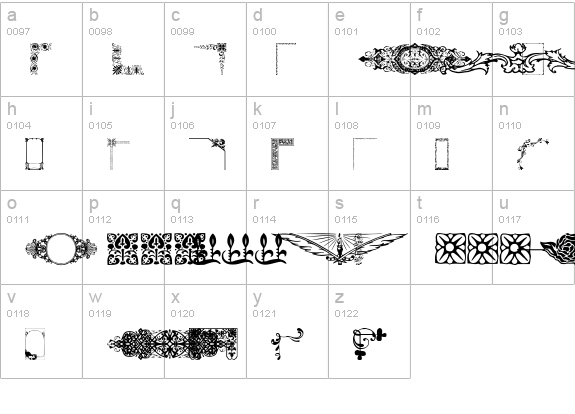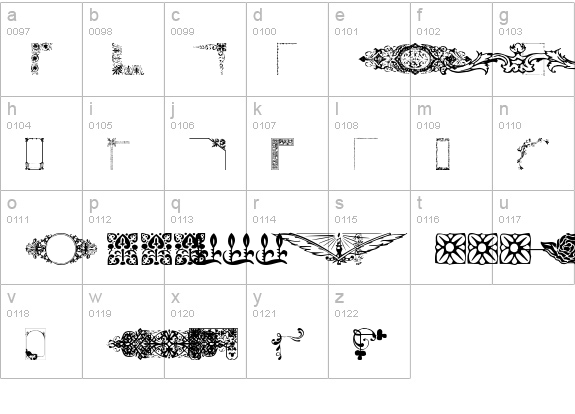
Designer Mix Font Details
Introducing Designer Mix font, a stunning and versatile typeface that is sure to elevate your designs to new heights. With its unique blend of modern and classic elements, Designer Mix font is perfect for a wide range of projects, from branding to editorial design. The elegant curves and stylish details of this font will capture attention and add a touch of sophistication to any piece. Best of all, Designer Mix font is completely free to download at FontsMarket.com. Yes, that's right - you can access this premium font at no cost, making it an incredible value for designers of all levels. Don't miss out on the opportunity to enhance your work with the Designer Mix font - download it today and unleash your creativity!